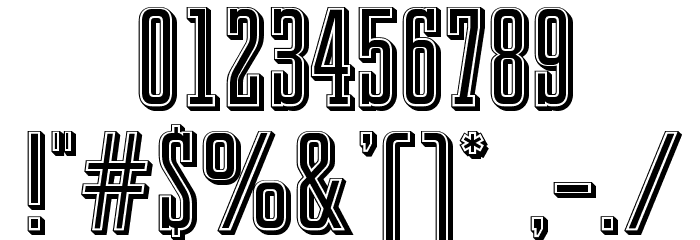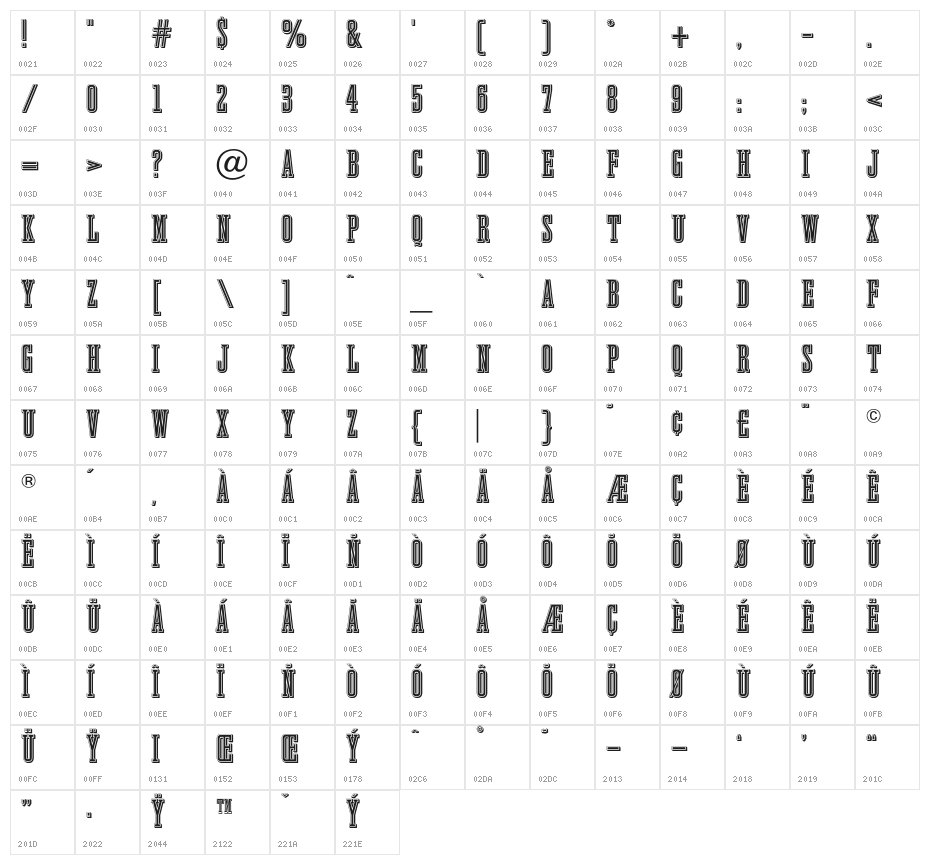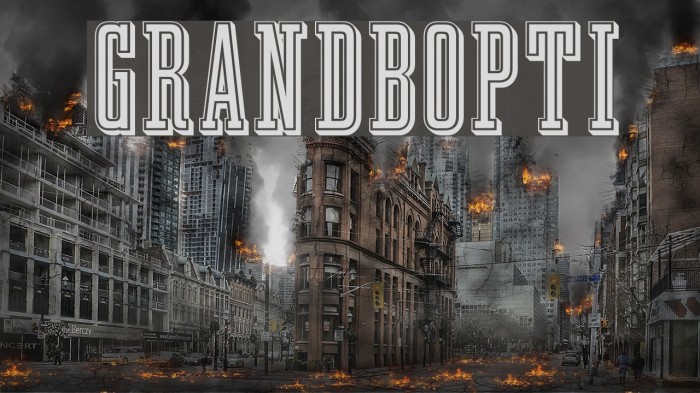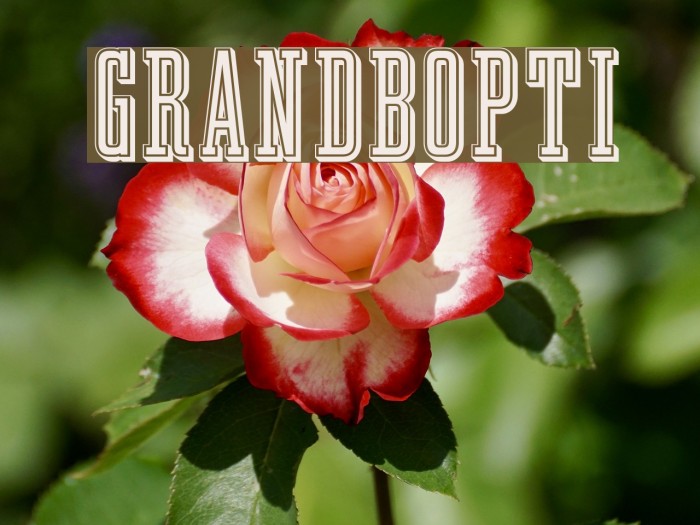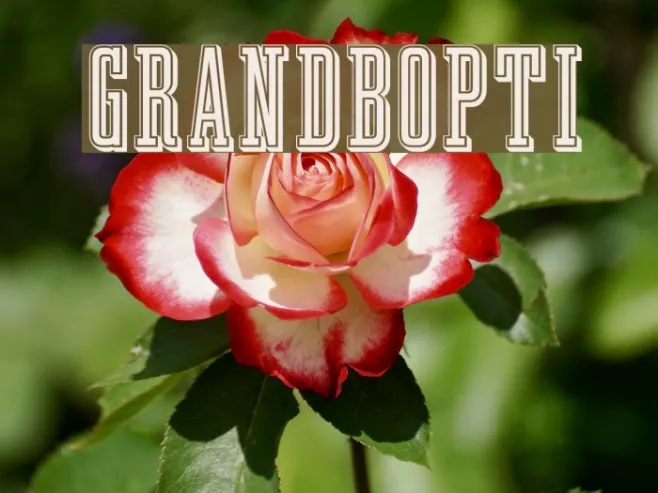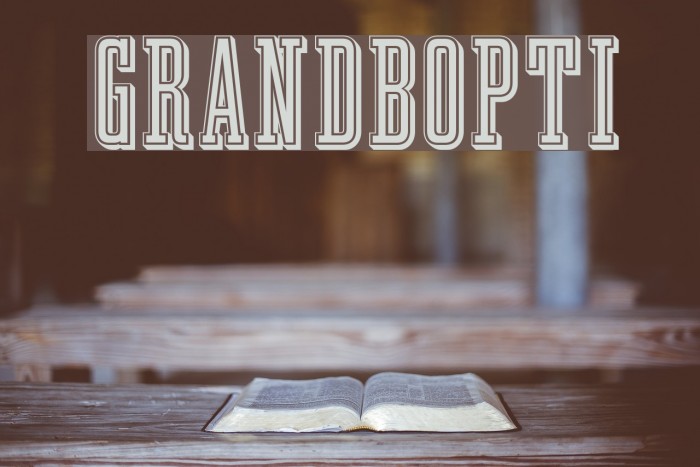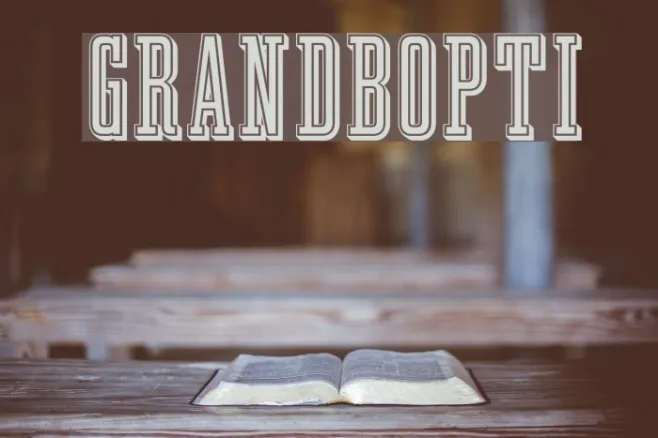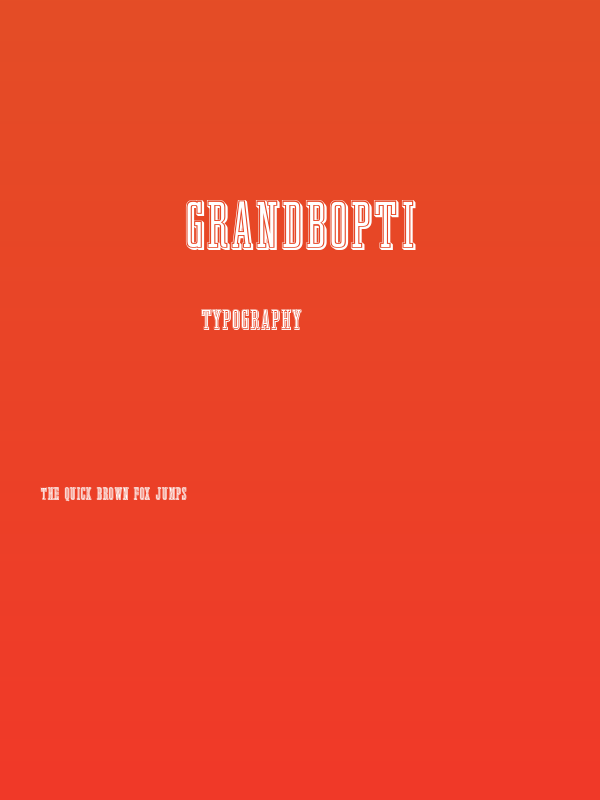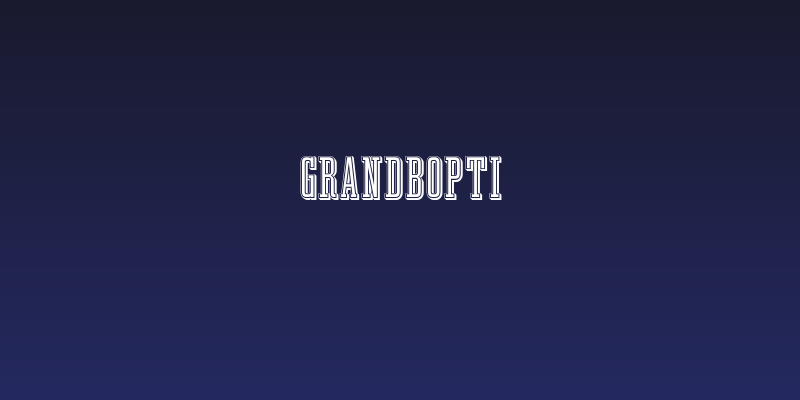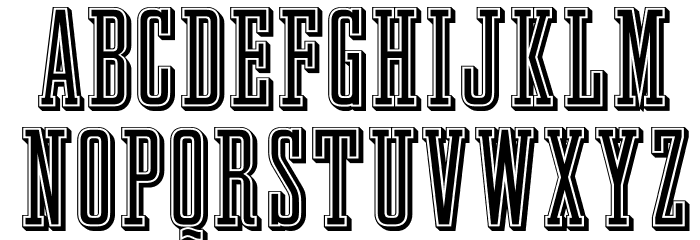
GrandBOpti Font
GrandBOpti Description
This font features a bold, decorative style with a strong presence. Each character is outlined with a thick border, giving it a three-dimensional effect. The uppercase and lowercase letters maintain a consistent height, contributing to a uniform appearance. The numerals are equally bold, matching the style of the letters. Special characters are designed with the same attention to detail, ensuring they blend seamlessly with the rest of the font. The overall design is reminiscent of vintage signage, making it ideal for projects that require a touch of nostalgia.
Overall StyleVintage
Proposed ProjectsIdeal for vintage-themed posters, signage, branding, and headlines that require a strong visual impact.